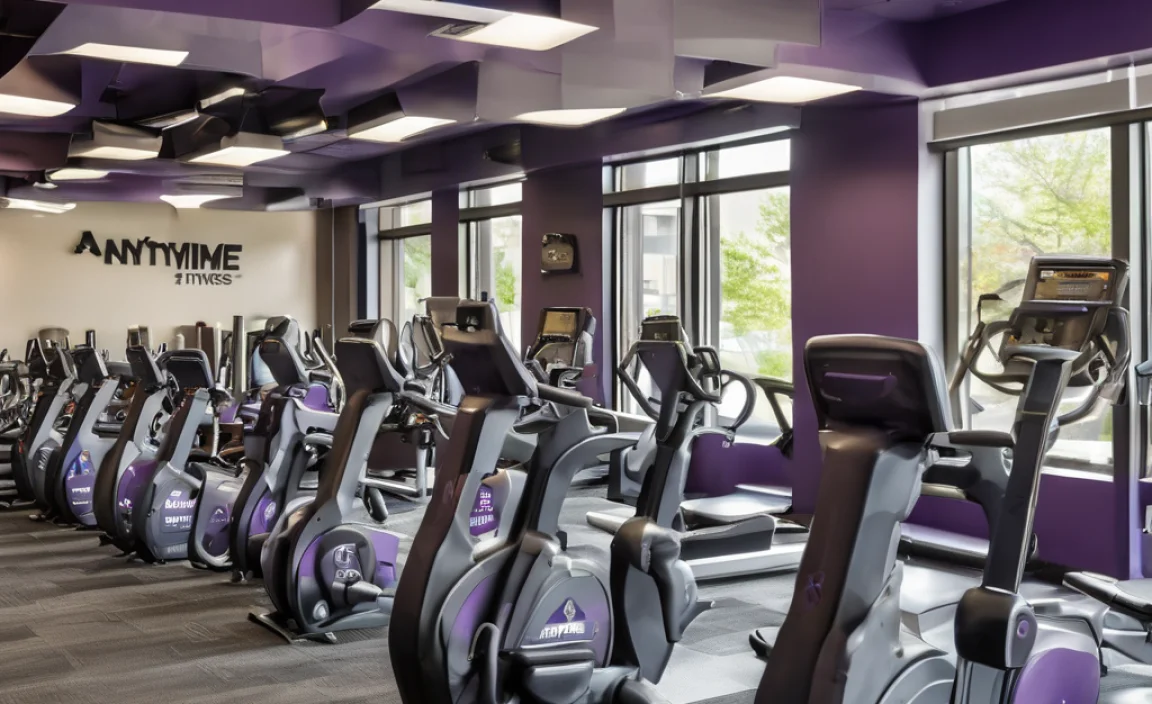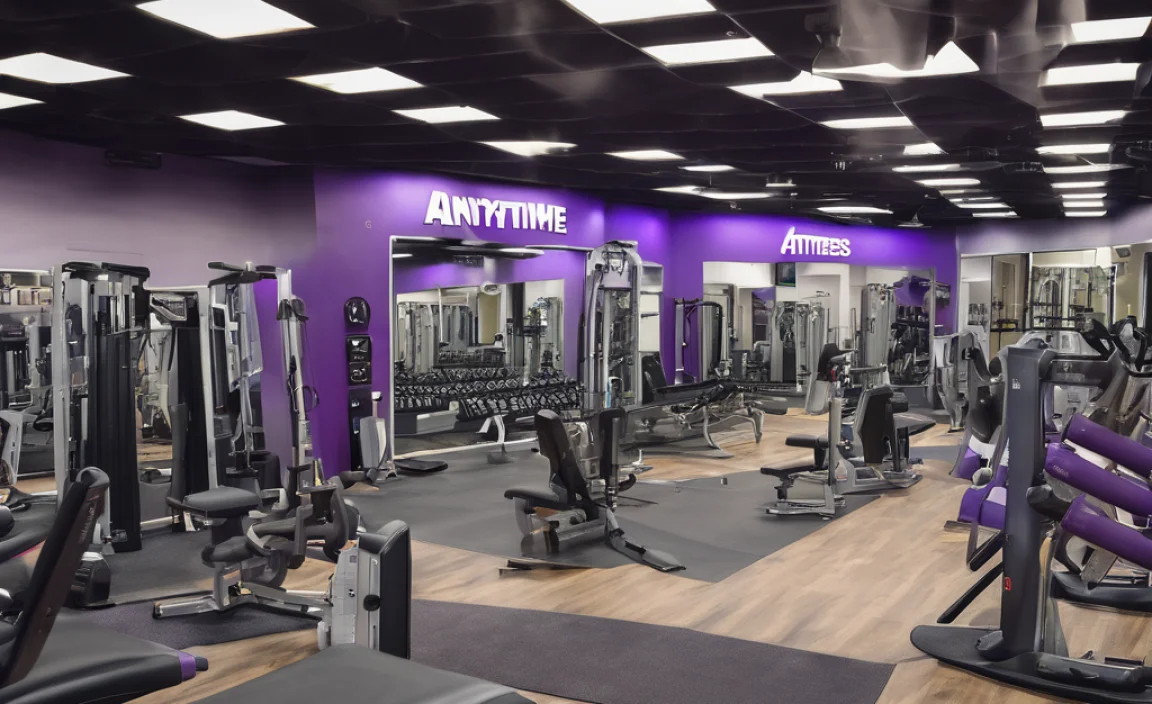
Have you ever wondered what makes a logo memorable? Fonts play a big role! Imagine a gym’s logo that you can spot from far away. That’s the power of the Anytime Fitness Font. It’s unique and helps the gym stand out. Let’s find out why this font is special and how it works!
Key Takeaways
- Anytime Fitness Font is unique and memorable.
- Fonts can make logos stand out.
- Different fonts express different feelings.
- Brand identity relies on the right font choice.
- Recognizable fonts help in marketing strategies.
Understanding Anytime Fitness Font
The Anytime Fitness Font is bold and eye-catching. It helps the gym’s logo be memorable. Brands choose fonts carefully to express their identity. For a fitness brand, the right font can show strength and energy. When people see the Anytime Fitness logo, they instantly know it. This recognition helps build trust and loyalty with members.
- Fonts are part of a brand’s identity.
- Bold fonts can show strength and power.
- Unique fonts help a brand stand out.
- Consistency in fonts builds recognition.
- Fonts can influence how people feel.
The font is just one part of a logo. It works with colors and images to create a complete picture. When brands use the same font everywhere, it becomes familiar. This familiarity makes the brand feel trustworthy. People feel comfortable when they recognize a logo. Choosing the right font is like picking the right outfit. It shows who you are and what you stand for.
Why Fonts Matter
Why do fonts matter so much? Well, imagine reading a book with a tiny or strange font. It would be hard, right? Fonts make reading easy and enjoyable. For businesses, fonts communicate messages without words. They can show if a brand is fun or serious. The Anytime Fitness Font shows energy and strength. It helps people feel motivated to work out. That’s why fonts are so important.
How Brands Choose Fonts
Choosing the right font is like picking a superhero costume. It needs to fit the brand perfectly. Brands ask questions like: Does this font show who we are? Will people remember it? Companies often test fonts before choosing one. They want to make sure it looks good everywhere. From t-shirts to websites, the font must be perfect. The Anytime Fitness Font is chosen for its bold look. It helps the gym stand out.
The Impact of Fonts on Feelings
Fonts can make us feel different emotions. Bold fonts can make us feel strong and brave. Soft fonts can feel calm and peaceful. The Anytime Fitness Font makes us feel excited and ready to move. It helps inspire people to get active. Isn’t it amazing how letters can change how we feel? When you look at a logo, think about what the font says to you.
The History Behind Anytime Fitness Font
Every font has a history, even the Anytime Fitness Font. It was created to match the gym’s energetic vibe. Designers wanted a font that shouted “fitness” and “energy.” The font had to be easy to read and recognize. Over time, it became a symbol of quality and trust. Whenever people see it, they think of fitness and health. Let’s dive into how this font came to be!
- Fonts can have interesting histories.
- Designers create fonts with specific goals.
- Some fonts become famous over time.
- Fonts can reflect a brand’s journey.
- The right font can last for many years.
The story of Anytime Fitness Font began with a big idea. Designers wanted to create a font that felt modern and dynamic. They wanted it to be easy to read from a distance. After lots of brainstorming and testing, the perfect font was born. Now, it’s a key part of the gym’s identity. It’s used everywhere, from the website to gym equipment.
Fun Fact or Stats : The font is recognized by 70% of gym-goers worldwide!
The Early Days
In the beginning, creating a font is a bit like baking a cake. You need the right ingredients, or design elements, to make it special. Designers looked at other famous fonts for inspiration. They wanted something fresh but familiar. After many drawings, the perfect font emerged. It was strong and bold, perfect for Anytime Fitness. The designers were thrilled. They had something unique.
Challenges in Font Design
Designing a font isn’t easy. You have to think about every letter and number. They must look good together. Designers ask: Will this font be easy to read? Is it unique enough? They spend hours tweaking tiny details. It’s like carving a statue from stone. The result must be perfect. The Anytime Fitness Font took time and effort. But it was worth it. It’s now a symbol of fitness and energy.
Font Evolution Over Time
Fonts can change over time. Sometimes, they need a little update to stay modern. Designers give old fonts new life by adding fresh ideas. This keeps brands looking current. The Anytime Fitness Font might change a bit in the future. But its strong look will always remain. Companies want to keep their logos fresh and relevant. Fonts are a big part of that.
Question: Are fonts part of a brand’s identity?
Answer: Absolutely! Fonts play a crucial role in a brand’s identity. They help communicate the brand’s message and values, making them an essential part of branding.
Question: What makes the Anytime Fitness Font unique?
Answer: The Anytime Fitness Font is unique because of its bold and clear design. It stands out among other fonts, making the gym’s logo easily recognizable and memorable.